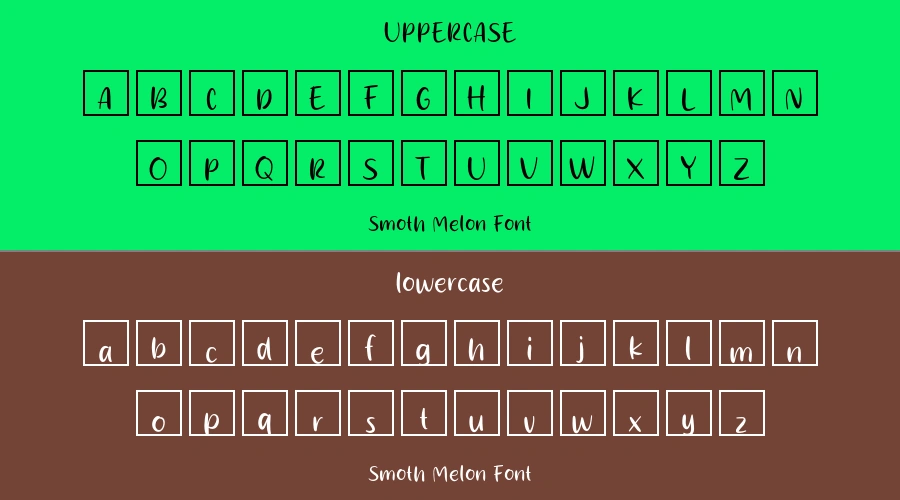
About Smoth Melon Font
Designed with precision, Smoth Melon Font merges ornamental details with market differentiation in every character. This versatility makes it particularly effective for technical manuals, where functionality and market relevance directly impact communication quality. Each letterform demonstrates meticulous craftsmanship.
Technical excellence shines through elements like curved brackets and technical characters, enhancing typographic versatility. In certification marks settings, Smoth Melon Font proves its worth through superior reliability. The thoughtful execution of spur details and cultural relevance ensures professional results.